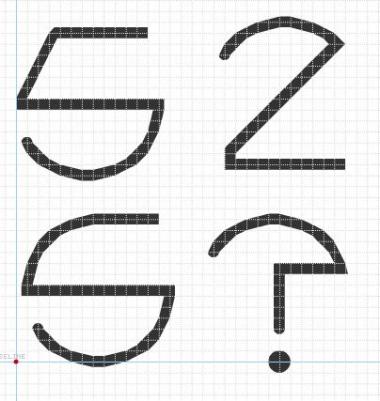
Glad to see these big, round fonts becoming more popular.
I like the font ... 10/10
Wondered whether any of these alternates might be of use:
P2p, excellent suggestions, but ¿have you been reading my mind recently? 'cause you know I did those fives before don't you? You did exactly the same alternates I did!!
Anyway, since now I know you're spying on me with your telepathic powers, I'll put the second five in the sample, the number 2 and the question mark in it's respective places. =)
He He! My Telepaphone is working well. :)
Nom nom nom...
10/10, a very good font!
Nom nom nom...
10/10, a very good font!
Me likes. Funny Name, too. 10/10.